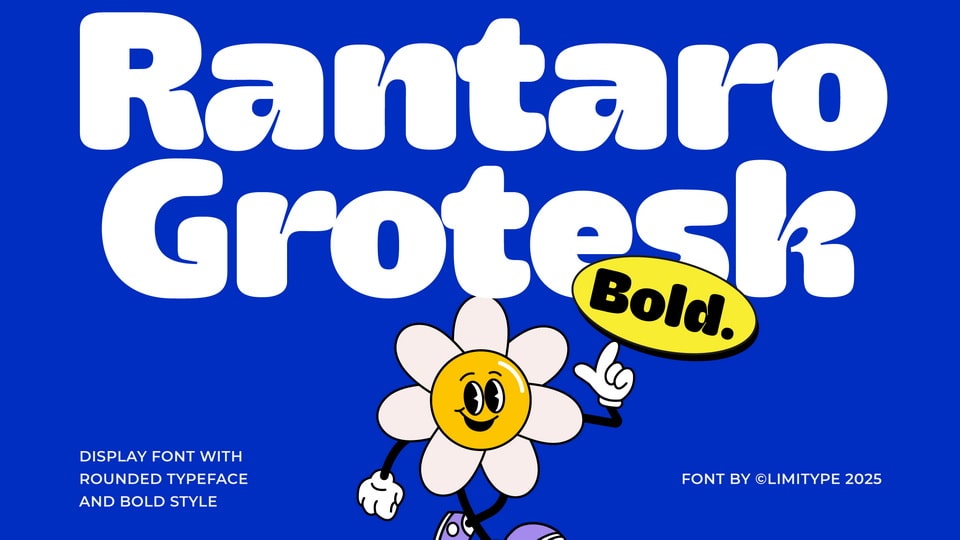
Download Rantaro font, a modern display typeface featuring a smooth, rounded style that gives it a friendly yet professional look with its unique inktrap details.